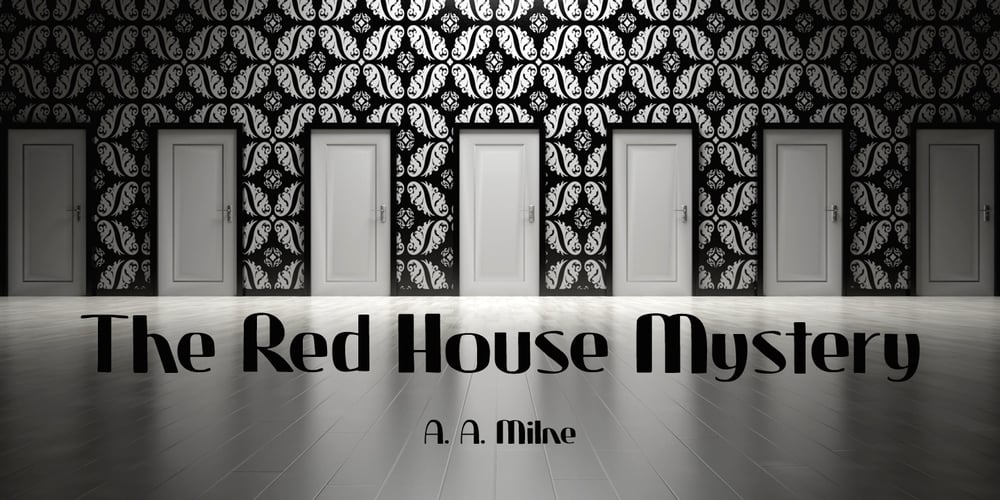
Lenox Avenue Font Family was designed by Samuel Welo, David Kerkhoff and published by Hanoded. Lenox Avenue contains 2 styles and family package options. I came across an old book called ‘Studio Handbook Letter And Design For Artists And Advertisers’ by Samuel Welo. Samuel Welo was an American advertising calligrapher, typographer and lettering artist, who was most active during the roaring twenties. Lenox Avenue is my version of a set of letters in that book. It was handmade (just like Welo had done). I only had an ABC/abc to work with, so I designed all the remaining glyphs myself. I changed some of the original (and quite quirky) letters to a more contemporary form. The font is named Lenox Avenue, once home of the famous Savoy Ballroom. Comes with all the bells & whistles.